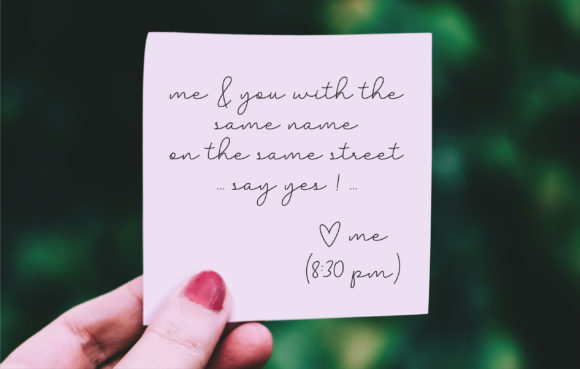
Birmingham Script: A Handwritten Font with Authentic Charm
When you need a design element that feels genuinely human, the choice of typeface matters immensely. Birmingham Script enters the scene as a sophisticated handwritten font designed to carry your message with a blend of confidence, authenticity, and undeniable charm. It's more than just a collection of letters; it's a tool for adding personality and warmth to your projects, moving beyond the sterile uniformity of standard fonts to create a real connection with your audience.
Visually, Birmingham Script strikes a beautiful balance. It avoids the extremes of overly casual, childlike scrawl and rigid, formal calligraphy. The letterforms possess a natural, flowing rhythm, with elegant connections and subtle variations that mimic the organic nature of real handwriting. This isn't a monoline font; you'll notice delicate thick-to-thin transitions that add a touch of sophistication and depth. The overall aesthetic is one of relaxed confidence—it looks considered and crafted, yet approachable and friendly. This makes it an incredibly versatile premium font suitable for a wide array of applications where a personal touch is desired.
Where Birmingham Script Truly Shines
The real strength of a creative font like Birmingham Script is its adaptability across different media and project types. Its inherent charm makes it a standout choice for projects where you want to build an emotional connection or convey a sense of handmade quality.
- Branding and Logo Design: For businesses that want to project warmth, authenticity, and a personal touch, Birmingham Script is an excellent candidate for logo design. Think boutique bakeries, artisan coffee shops, wedding planners, florists, or lifestyle blogs. Paired with a clean sans serif font, it creates a dynamic and memorable brand identity that feels both professional and heartfelt.
- Packaging and Labels: On product packaging, a handwritten font can instantly communicate small-batch quality and care. Use Birmingham Script for product names, flavor descriptions, or "Made With Love" tags on artisanal goods, cosmetics, or gourmet foods. It helps your product stand out on the shelf by telling a story before the customer even reads the ingredients.
- Editorial and Publishing: In editorial design, such as magazine headlines, blog post titles, or chapter openers in a book, Birmingham Script can add a layer of visual interest and break up the monotony of body text. It’s perfect for pull quotes or section headers that need to feel more personal and engaging.
- Digital and Social Media: The font translates beautifully to screen. Use it for impactful text overlays on social media graphics, Instagram story headers, YouTube video thumbnails, or website banners. Its character helps your content feel less corporate and more relatable, which is key for audience engagement online.
- Crafting and Personal Projects: For crafters and hobbyists, the applications are endless. From custom greeting cards and wedding invitations to personalized stationery and scrapbooking, Birmingham Script adds that professional, polished look that elevates a homemade project into a keepsake.
The Practical Side of Choosing a Handwritten Font
While the aesthetic appeal is crucial, practical considerations ensure a font works effectively within your design system. Birmingham Script is designed with usability in mind, but here’s how to approach it thoughtfully.
First, consider readability. This is a display font, meaning it’s crafted for headlines, short phrases, and emphasis—not for long blocks of body copy. Using it for a 500-word paragraph would strain the reader's eyes. Its strength lies in impactful, concise applications. Always test your chosen text at the size it will be viewed. A phrase that looks elegant on a desktop screen might become illegible when scaled down for a mobile social media graphic.
Second, master the art of font pairing. A script font like Birmingham Script rarely works well in isolation. Its personality needs a grounding element. The most successful pairings often involve a stable, neutral companion. A simple, geometric sans serif font for body text provides a clean, modern contrast that lets the script shine without competing. Alternatively, a classic, readable serif font can create a more traditional and elegant hierarchy. The key is contrast in style and weight.
Third, explore the full potential of the typeface. Birmingham Script is PUA encoded, which is a significant practical advantage. This means all the decorative glyphs, swashes, and alternate characters are easily accessible through standard software like Adobe Illustrator, Photoshop, or even Canva. Don’t just settle for the default letters. Experiment with stylistic alternates to vary the look of certain letters, preventing repetitive patterns and enhancing the natural, handwritten feel. This feature is a hallmark of a well-crafted commercial font.
Choosing a font is a strategic decision. Birmingham Script offers a specific personality: confident, charming, and authentic. It’s not the right fit for a corporate law firm's annual report, but it’s perfect for a wedding invitation suite, a boutique brand's social media presence, or the cover of a cookbook. By understanding its visual strengths and practical applications—from packaging design to web design—you can use it to create designs that don't just look good, but feel genuine and connect on a human level. It’s a valuable tool in any designer's or creator's toolkit for projects that demand a touch of heartfelt elegance.